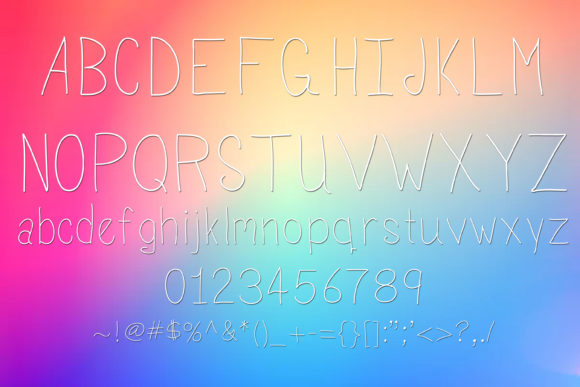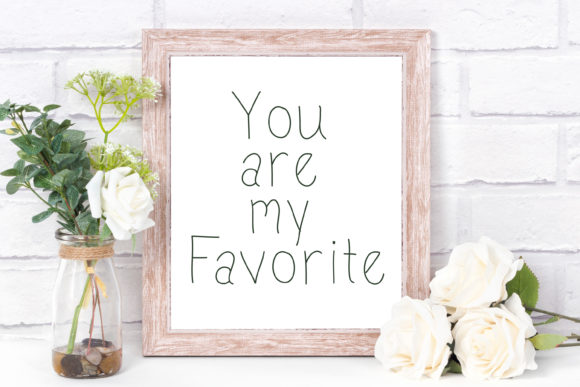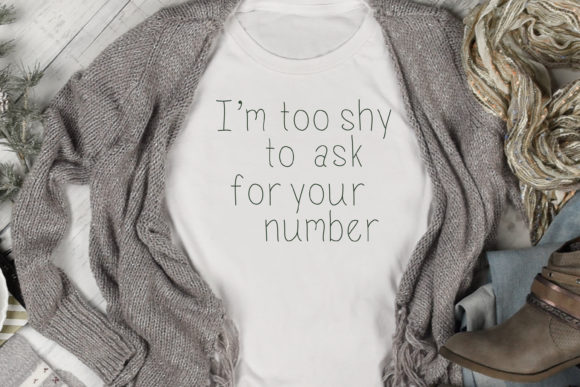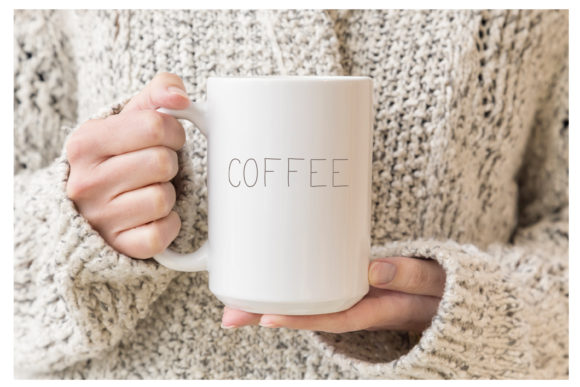
Introduction to Pixie Sticks Font
Have you ever stared at a blank canvas, feeling stuck and uninspired, only to have a spark of creativity ignite when you stumbled upon the perfect design element? That’s exactly what happened to many designers when they discovered the whimsical Pixie Sticks Font. This quirky script font is more than just a pretty face – it’s a game-changer for any creative project.
Whether you’re a seasoned pro or just starting out, the Pixie Sticks Font is a valuable resource that can add an extra layer of personality to your designs. From logos and postcards to posters and social media graphics, this font is incredibly versatile and can be used in a wide range of applications.
Pixie Sticks Font
- Unique, colorful design perfect for creative projects and design resources.
- High-quality font with transparent background, ideal for use on a variety of design elements.
- Perfect for use in digital designs, such as web graphics, social media graphics, and more.
- Unique, whimsical style reminiscent of classic candies, making it a fun addition to any design project.
Honest Review: Pixie Sticks Font
I recently had the chance to try out the Pixie Sticks Font, and I must say, it’s been a fun addition to my design resource collection. The font is free to download, which is always a plus, and it comes with a transparent background, making it easy to use on any creative project.
What works well about the Pixie Sticks Font is its playful and whimsical feel. The font is perfect for adding a touch of magic to your designs, and its high quality makes it a great choice for any project.
- ✨ The font is perfect for use in children’s books, party invitations, and other creative projects.
However, there are a few limitations to the Pixie Sticks Font. It’s not suitable for use in formal or professional settings, and it may not be the best choice for projects that require a more serious tone.
Overall, I’m impressed with the Pixie Sticks Font. It’s a great addition to any design resource collection, and its high quality and playful feel make it a joy to use.
I would definitely recommend the Pixie Sticks Font to anyone looking for a fun and creative font to add to their designs.
Tips for Getting the Most Out of Pixie Sticks Font
To get the most out of the Pixie Sticks Font, use it on a transparent background to create a fun and playful design. Experiment with different font sizes and colors to add emphasis to your creative project.
The Pixie Sticks Font is perfect for creative projects, such as party invitations, social media graphics, and blog posts. Its whimsical design makes it ideal for adding a touch of fun and personality to your design.